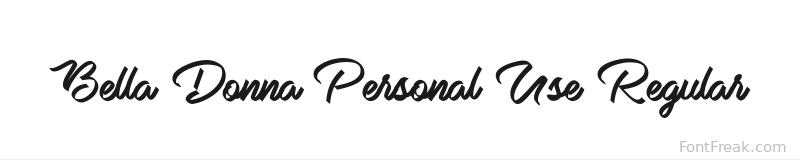
Bella Donna Personal Use Regular
About Bella Donna Personal Use Regular
Introducing the Bella Donna Personal Use Regular font by Billy Argel Fonts, a stunning script typeface that embodies elegance and sophistication. This font, classified as a handwritten style, features fluid, cursive letterforms that flow seamlessly, making it an ideal choice for various creative projects. The stroke weight is consistent, offering a balanced contrast that enhances readability while maintaining a decorative flair. With its graceful curves and swashes, Bella Donna brings a touch of romance to any design.
This versatile font is perfect for a range of applications. It shines brightly in wedding invitations, where its delicate style evokes charm and intimacy. Graphic designers can use it for creating eye-catching movie posters that require a hint of sophistication. Bella Donna is also suitable for restaurant menus, adding an upscale feel that can elevate the dining experience. Additionally, small business owners may find it ideal for branding materials, such as logos and promotional flyers, that call for a personal touch. Content creators looking to add flair to their social media graphics will also appreciate its unique character.
The target audience for Bella Donna Personal Use Regular includes graphic designers, small business owners, and content creators who seek a font that can enhance their visual storytelling. Its unique charm and versatility make it a valuable addition to any designer’s toolkit.
In conclusion, the Bella Donna Personal Use Regular font stands out for its elegant script style and adaptability to various design contexts. The option for a Bella Donna Personal Use Regular font free download allows creatives to incorporate this beautiful typeface into their projects without hesitation, ensuring that each design is imbued with style and sophistication.